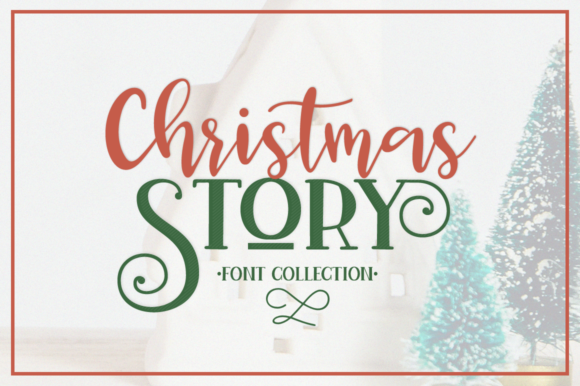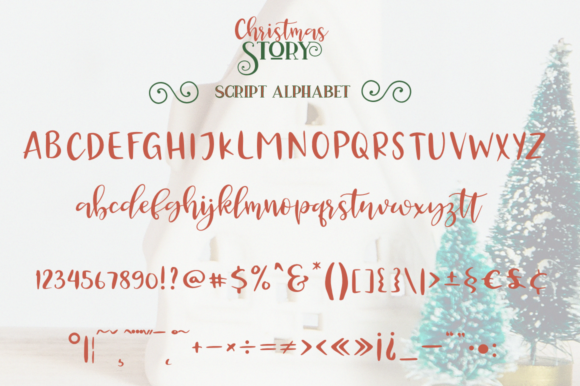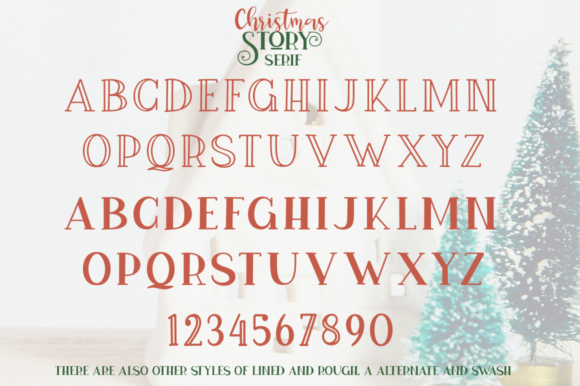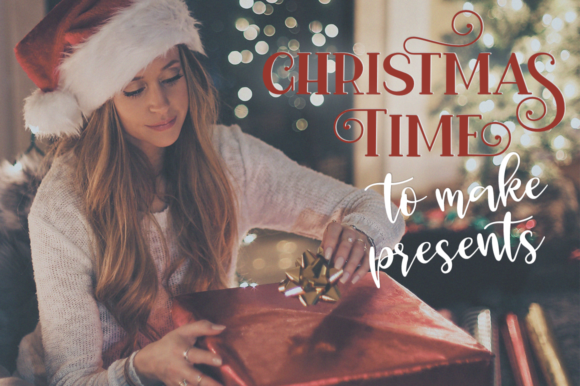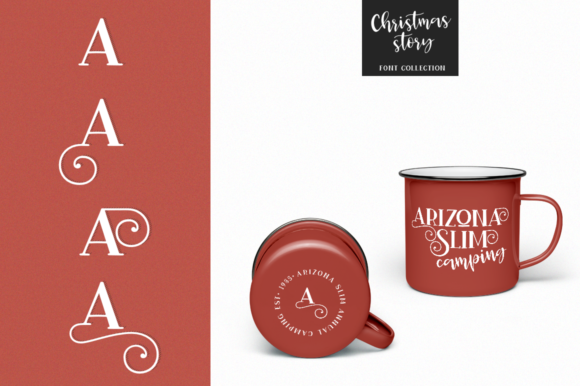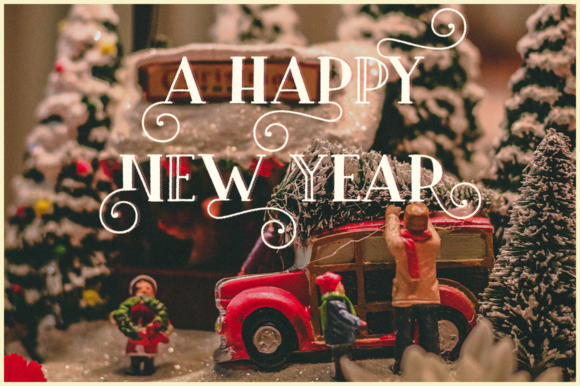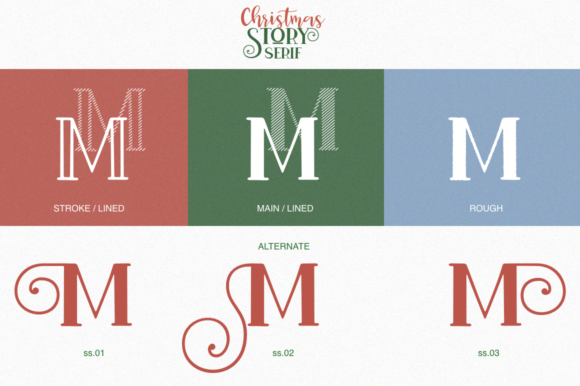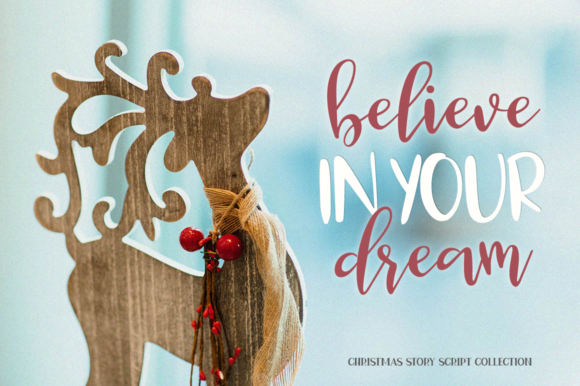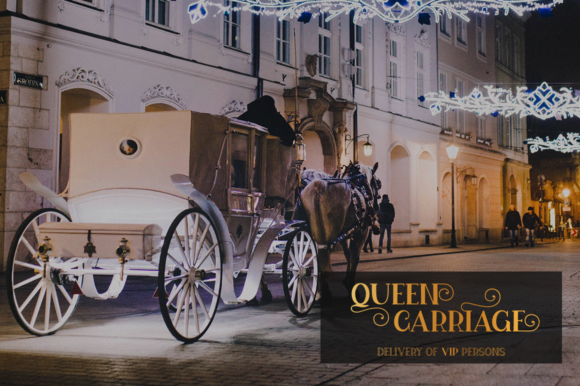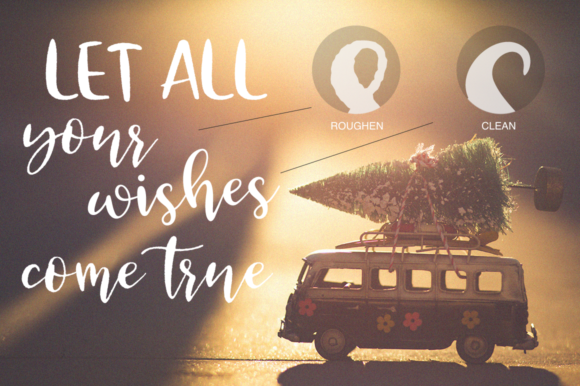
Christmas Story Font
About Christmas Story Font
The Christmas Story is a beautiful font family which comes in five weights. The several styles work perfect together and will help you make your project more complete and bright.